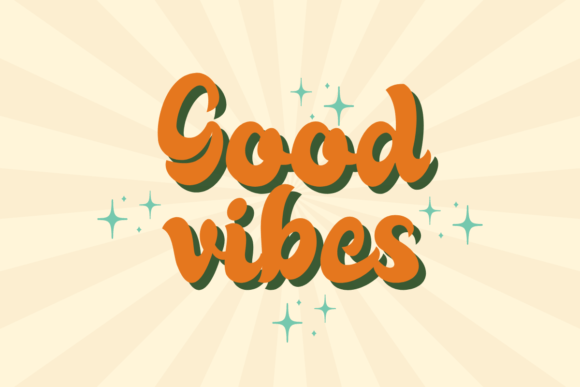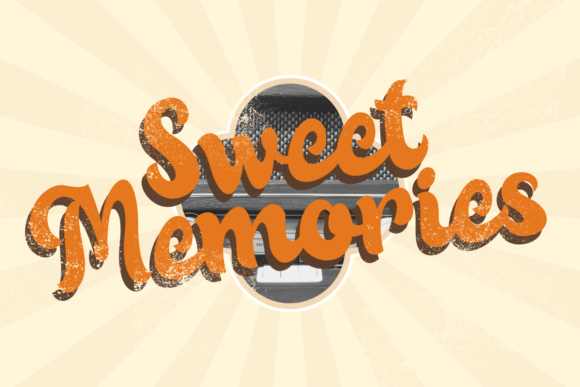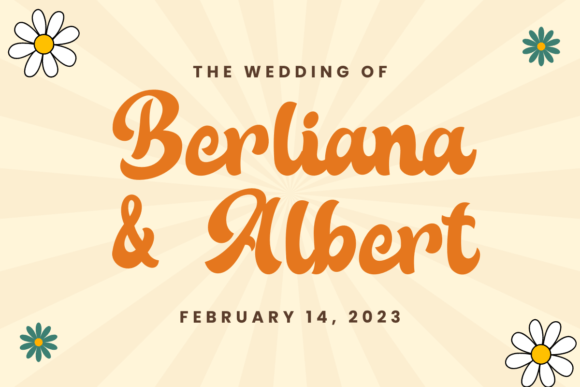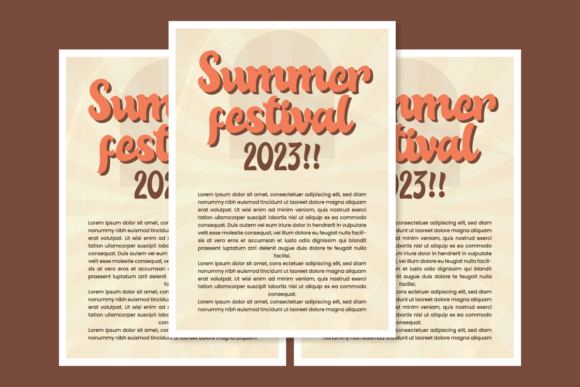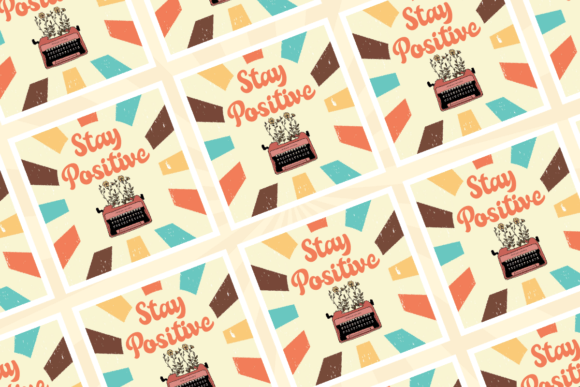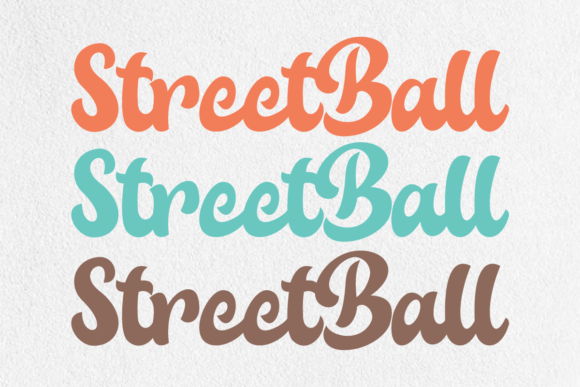
The Retro Charm of Balleny Font: A Designer’s Delight
I still remember the struggle I faced while working on a vintage-themed project for a client. I had to find the perfect font that would transport the audience back in time, but my search seemed endless. That’s when I stumbled upon the Balleny font, a cool, retro-style script font that instantly caught my attention. If you’re a designer, crafter, or creative hobbyist looking to add a special, vintage touch to your designs, you’re in luck! In this article, we’ll dive into the world of Balleny font and explore its features, uses, and alternatives.
An Honest Review of Balleny Font
So, what makes Balleny font so special? Let’s take a closer look:
- ✨ Unique Retro Style: Balleny font boasts a distinctive retro charm that’s perfect for vintage-themed designs, logos, and branding materials.
- ✅ Highly Readable: Despite its ornate style, Balleny font is surprisingly readable, making it suitable for body text and headings.
- ✅ Versatile: This font can be used for a wide range of design projects, from invitations and posters to social media graphics and website headers.
However, no font is perfect, and Balleny has a few quirks:
- 🤔 Limited Use in Small Sizes: While Balleny font is readable, it may not be the best choice for very small font sizes or body text.
- ⚠️ Occasional Kerning Issues: Some users have reported kerning issues when using Balleny font in certain design software.
The Story Behind Balleny Font
While the origins of Balleny font are shrouded in mystery, it’s said to have been inspired by vintage advertisements and signage from the early 20th century. The font’s creator aimed to capture the essence of a bygone era, with its elegant lines, flowing curves, and nostalgic charm.
| Font Name | Balleny Font |
| Author | Letterayu |
| What is Balleny font best used for? | Balleny font is perfect for vintage-themed designs, logos, branding materials, invitations, posters, and social media graphics. |
| What are some common issues with Balleny font? | Some users have reported kerning issues and limitations when using Balleny font in small sizes or body text. |